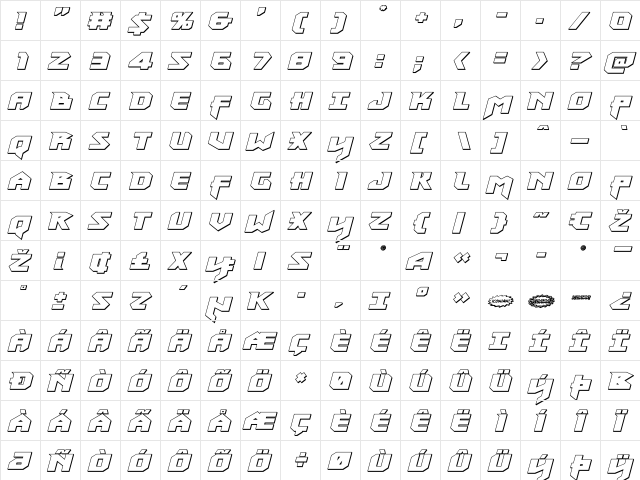
Heavy Copper 3D Italic Italic
Italic ·  Daniel Zadorozny ·
DesignerDaniel Zadorozny
Design Context for Heavy Copper 3D Italic Typeface
Heavy Copper 3D Italic is a composed and adaptable typeface that performs quietly and consistently across a wide range of design contexts. Its italic angle brings a sense of urgency and motion to the letterforms.